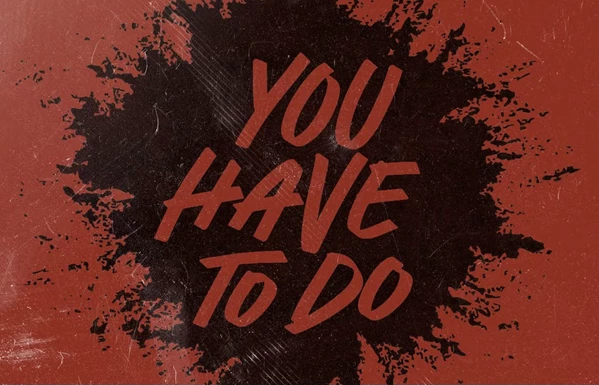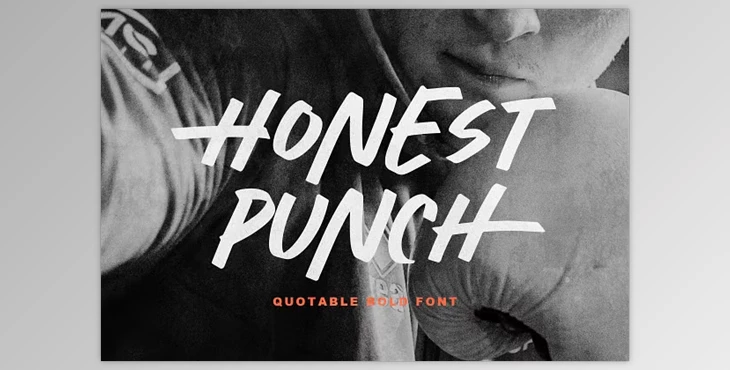
Honest Punch - Quotable Bold Font: Meet Honest Punch, a bold and robust quotable font designed to make a powerful statement in any project. With its solid and clear appearance, this font is ideal for taglines, branding, and quotes, offering readability and striking visual impact.
How can we make our branding text visually appealing?
You can use "Honest Punch - Quotable Bold Font."
Honest Punch features unique lowercase and uppercase characters that can be seamlessly combined within a word, adding a distinctive touch to your designs and making them more visually appealing. Additionally, the font includes ligatures, underlines, and supports multilingual characters, enhancing its versatility and usability across various languages and contexts.
"Honest Punch - Quotable Bold Font" Samples:
Whether crafting a memorable tagline, creating a striking logo, or designing impactful quotes, Honest Punch provides the perfect balance of elegance to improve your designs.